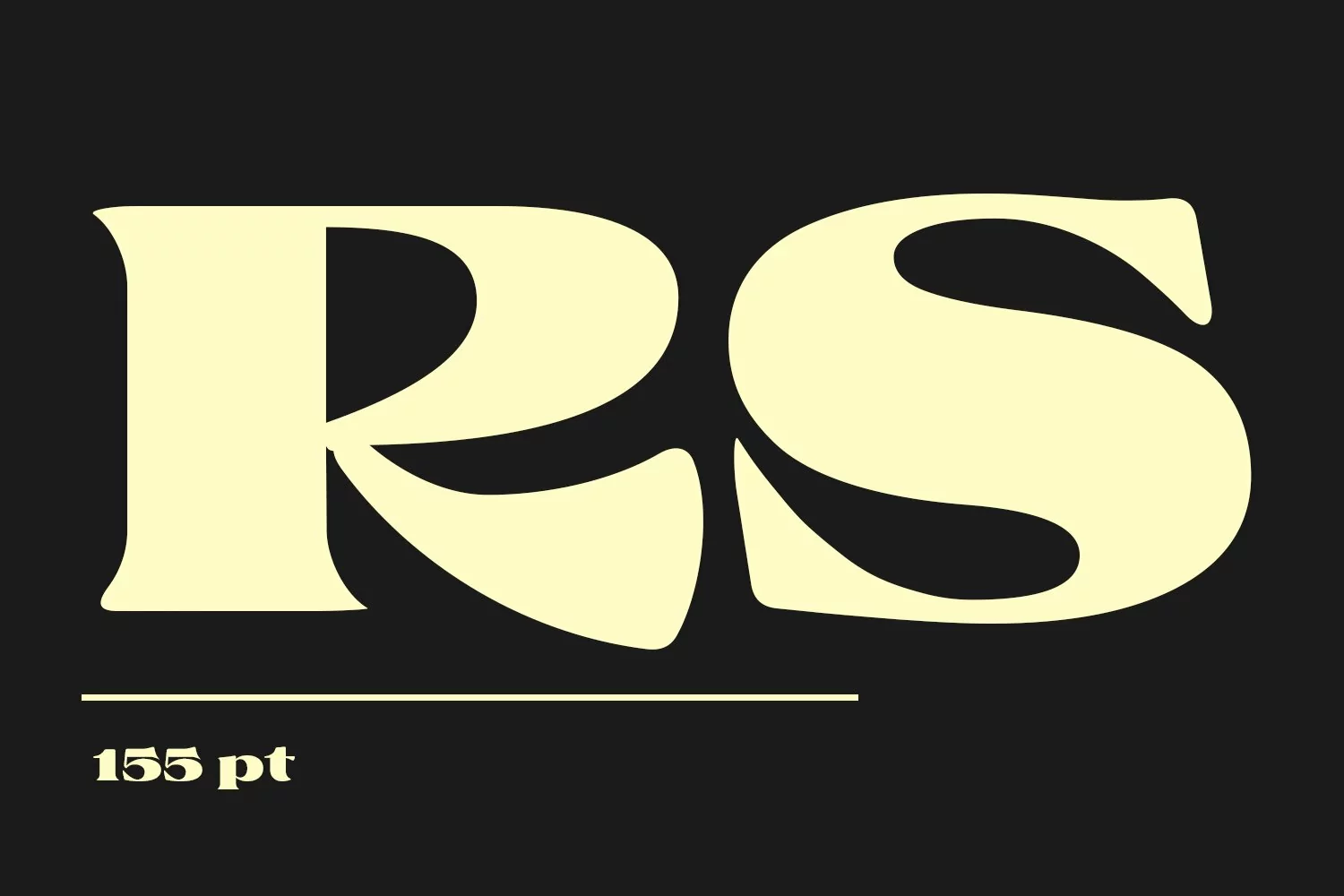
Rochek is a fancy Display serif font. With bold expanded stroke, fun character with a bit of ligatures and alternates. To give you an extra creative work. Rochek font support multilingual more than 100+ language. This font is good for logo design, Social media, Movie Titles, Books Titles, a short text even a long text letter and good for your secondary text font with sans or serif. Make a stunning work with Rochek font.